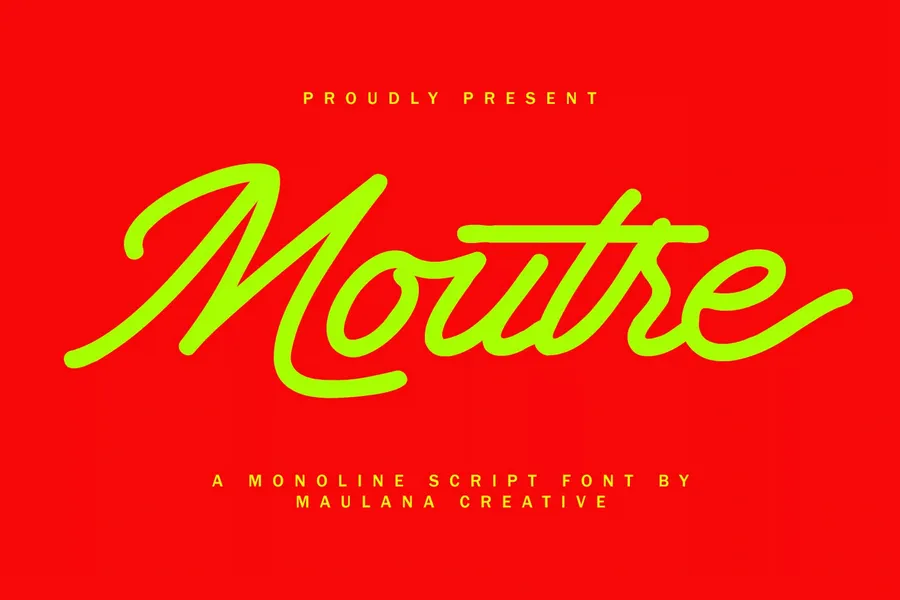
Moutre Monoline Signature
Moutre is an unique signature script font. With regular contrast stroke, fun character with a bit of ligatures and alternates. To give you an extra creative work. Moutre font support multilingual more than 100+ language. This font is good for logo design, Social media, Movie Titles, Books Titles, a short text even a long text letter and good for your secondary text font with sans or serif. Make a stunning work with Moutre font.